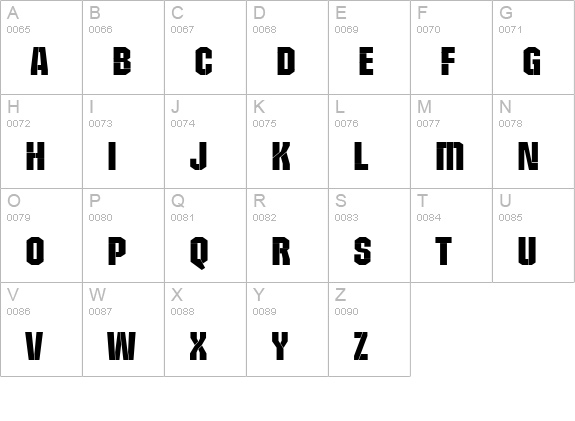
Structia Panel Font Details
Structia Panel font is a modern and sleek typeface that exudes sophistication and professionalism. With its clean lines and sharp edges, this font is perfect for creating a contemporary look in your designs. The versatility of Structia Panel makes it suitable for a wide range of projects, from branding to editorial design. What sets Structia Panel font apart is that it is available for free download at FontsMarket.com. This means that you can easily access this high-quality font without any cost, making it a valuable addition to your font library. Whether you are working on a personal project or a client's design, Structia Panel font will surely elevate your work with its elegant and refined aesthetic.